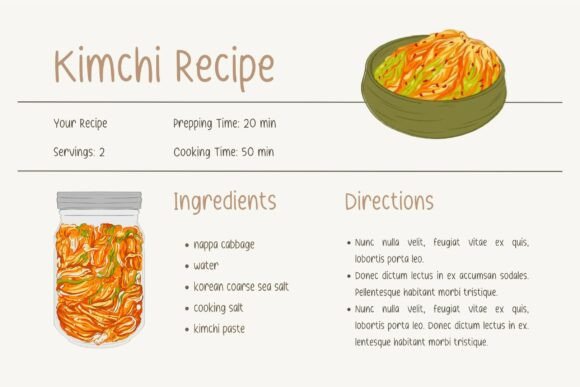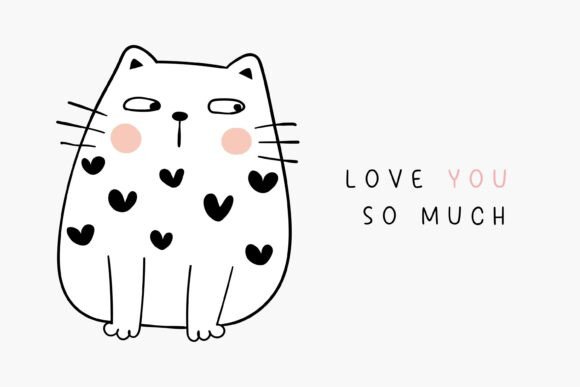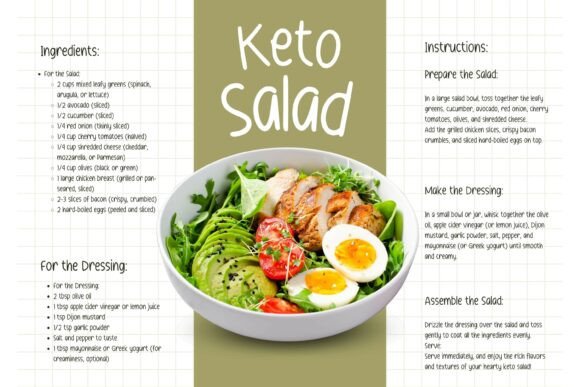
Introduction to Ramping Tall Font
Discover the fine fusion of simplicity and elegance embodied in the β€˜Ramping tall’ font.
With its softly styled lines and curves, it promises to breathe life into your creative designs Make your recipe cards more engaging, or add a special touch to thank you cards.
Why Choose Ramping Tall Font?